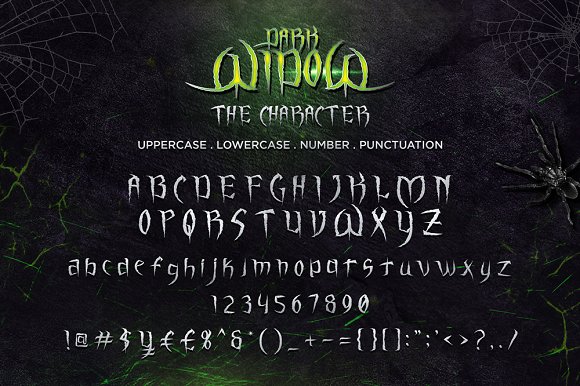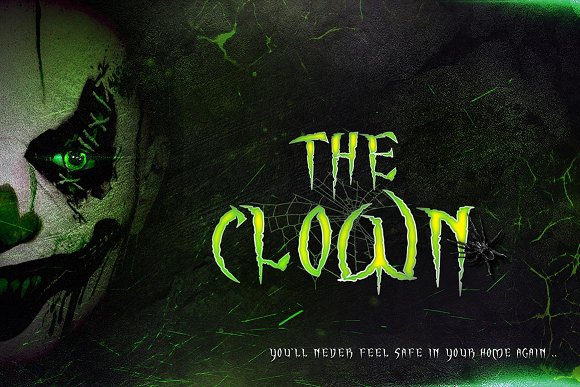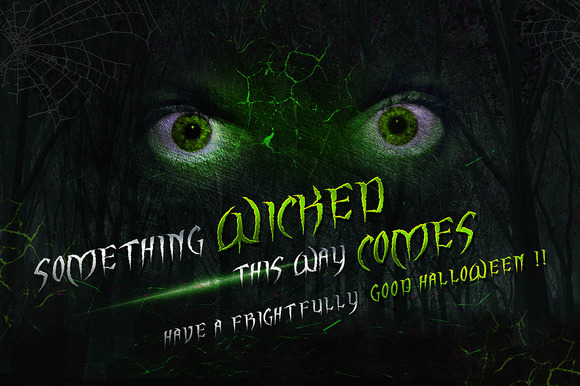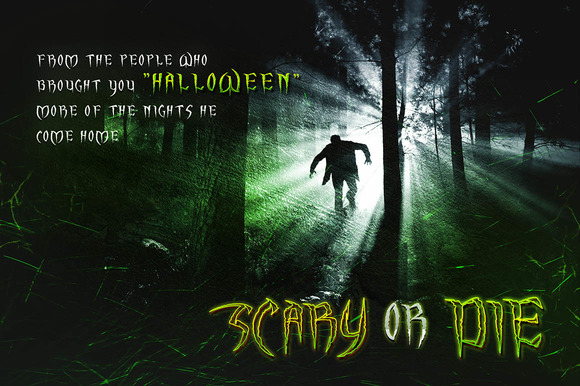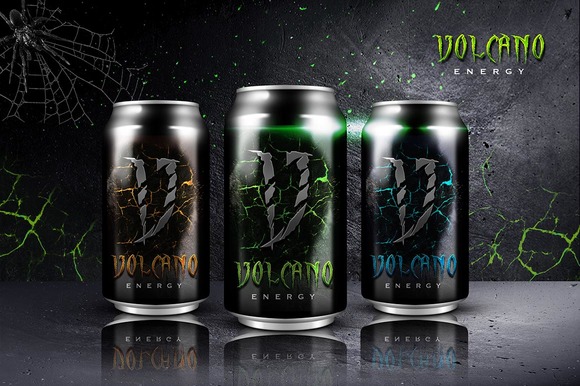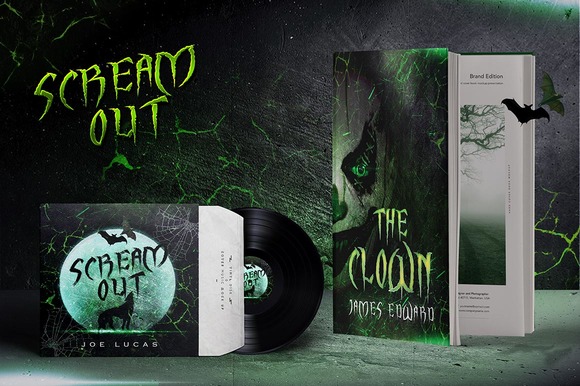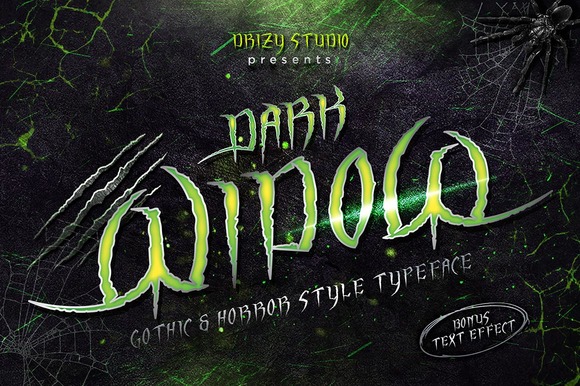
Unleash the Horror with Dark Widow Font: A Gothic Masterpiece
In the realm of typography, fonts play a crucial role in setting the tone and atmosphere of a design. For those who dare to venture into the darker side of creativity, the Dark Widow Font is an excellent choice. This horror-style font draws its inspiration from old traditional Gothic fonts, making it a perfect fit for designers and crafters who want to add a touch of eeriness to their work.
The Inspiration Behind Dark Widow
Dark Widow Font finds its roots in traditional Gothic typography, a style that has been associated with mystery, horror, and the supernatural for centuries. The font’s creator aimed to capture the essence of these classic Gothic fonts, while infusing them with a modern twist. The result is a unique and captivating font that exudes a sense of foreboding and intrigue.
A Font with Loads of Details
One of the standout features of the Dark Widow Font is its attention to detail. The edges of every letter are scratchy, giving the font a distinctive look that sets it apart from other Gothic fonts. The level of detail is impressive, with intricate lines and curves that add depth and character to each letter. This font is perfect for designers who want to create a bold statement or add a touch of horror to their designs.
Dark Widow Font is an excellent choice for designers and crafters who want to create a variety of projects, including:
• Horror-themed designs: Whether you’re creating a logo, poster, or social media graphic, Dark Widow Font is perfect for adding a touch of horror to your design.
• Gothic-inspired art: If you’re a fan of Gothic art, Dark Widow Font is an excellent choice for creating intricate and detailed designs.
• Crafting projects: Dark Widow Font is perfect for crafters who want to add a personal touch to their projects, such as handmade cards, scrapbooking, or DIY decorations.
Tips for Using Dark Widow Font
To get the most out of Dark Widow Font, here are some tips to keep in mind:
• Use it sparingly: Due to its intricate details, Dark Widow Font can be overwhelming if used excessively. Use it sparingly to add a touch of horror or Gothic flair to your design.
• Experiment with colors: Dark Widow Font looks great in bold, dark colors, but don’t be afraid to experiment with different colors to create a unique look.
• Pair it with other fonts: Dark Widow Font can be paired with other fonts to create a striking contrast. Try pairing it with a clean, sans-serif font to create a bold and eye-catching design.
Dark Widow Font is a horror-style font that draws its inspiration from old traditional Gothic fonts. With its intricate details and scratchy edges, it’s perfect for designers and crafters who want to add a touch of eeriness to their work. Whether you’re creating a horror-themed design, Gothic-inspired art, or crafting project, Dark Widow Font is an excellent choice. So, unleash your creativity and get ready to cast a spell with Dark Widow Font.